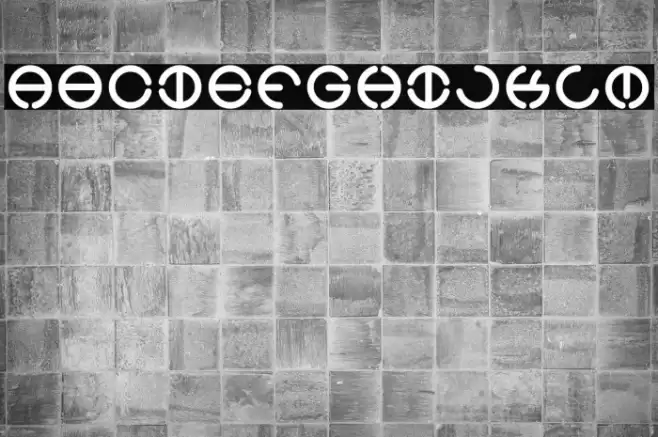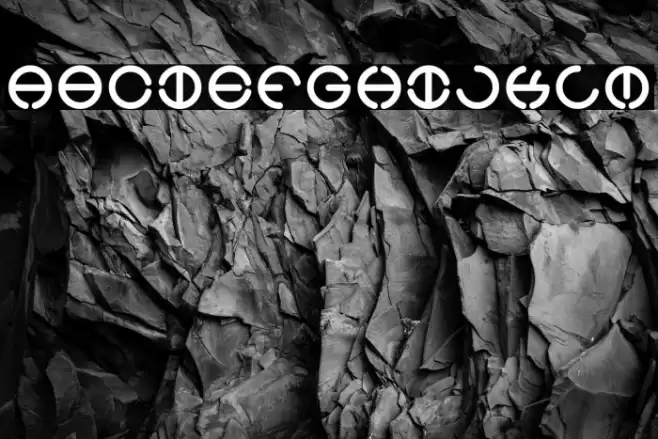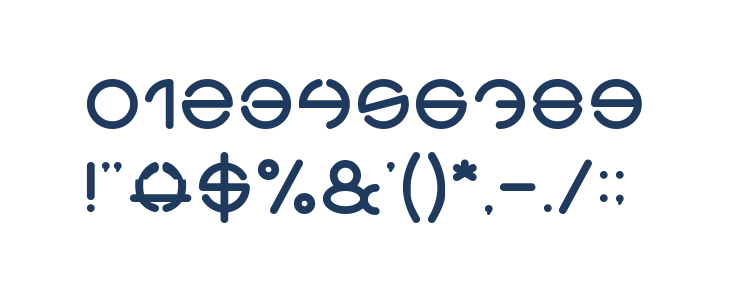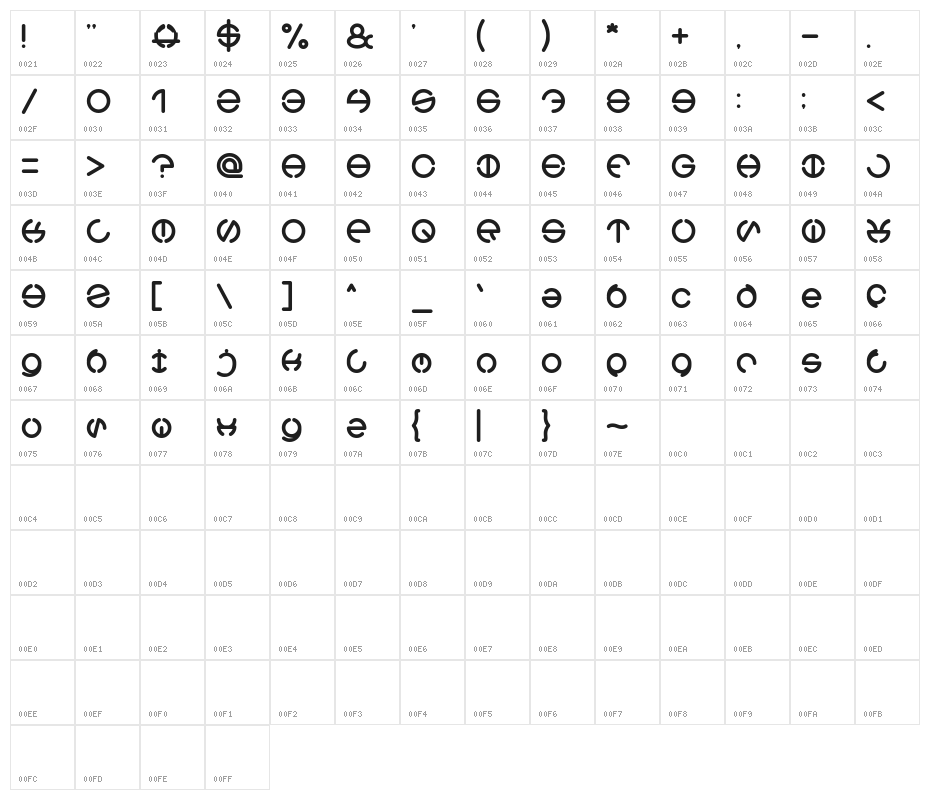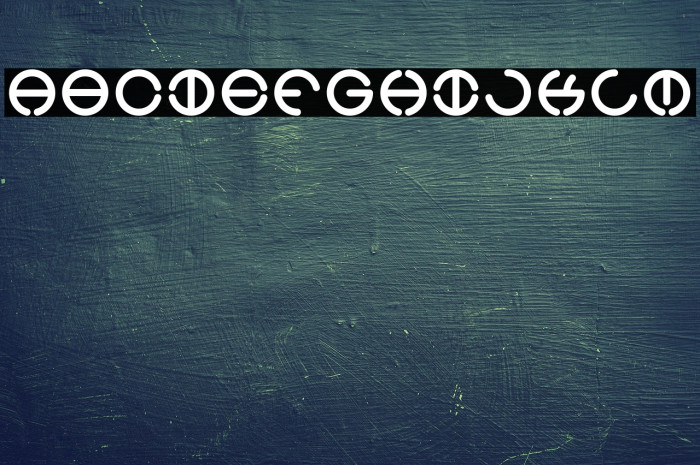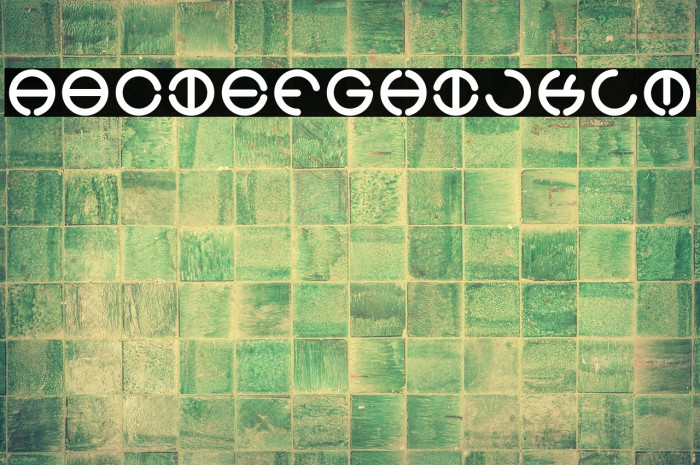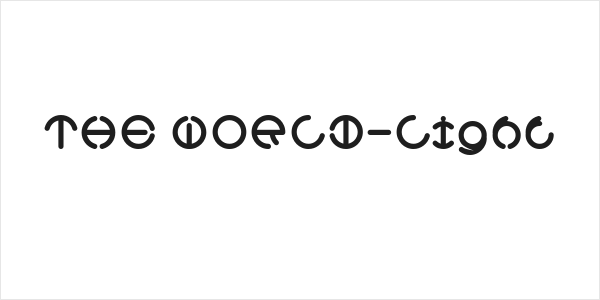
THE WORLD-Light Font
THE WORLD-Light Description
This font features a unique and futuristic design with circular and semi-circular elements that create a sense of movement and innovation. The characters are crafted with a consistent thickness, giving them a bold appearance while maintaining a clean and modern aesthetic. The uppercase and lowercase letters share a similar style, enhancing the uniformity of the typeface. The numerals and special characters are designed to match the overall theme, making this font suitable for creative and tech-oriented projects.
A futuristic and innovative font with circular design elements from Uncategorized fonts.
- Font: THE WORLD-Light
- Proposed Projects: Ideal for technology branding, sci-fi themed designs, video game interfaces, and modern art projects.